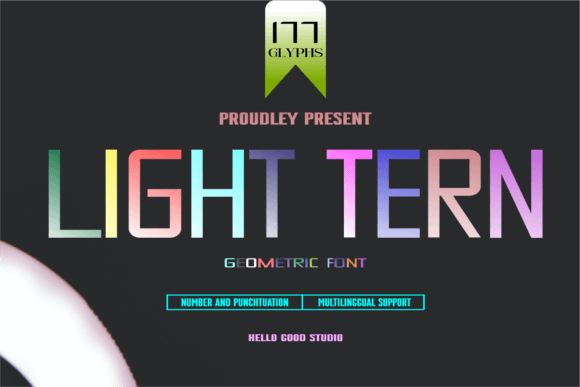
Light Tern: A Modern Display Font That Elevates Handmade Design
It was a quiet Tuesday morning—coffee steaming, candle wax still drying on my workbench—and I was tweaking the label for a new lavender-vanilla soy candle. The scent was calm, the jar was matte white, and the design needed to feel just as intentional. That’s when I opened Light Tern. Instantly, something clicked: clean lines, balanced spacing, and that subtle geometric confidence that doesn’t shout but still commands attention. Light Tern isn’t just another display font—it’s the kind of typeface that makes your handmade product feel thoughtfully composed, even before someone reads a single word.
Light Tern is a modern geometric display font inspired by the clarity and restraint of mid-century typography. Its letterforms are precise but not cold—rounded terminals soften sharp angles, x-heights are generous for readability at small sizes, and spacing feels intuitive whether you’re setting a two-word boutique tag or a full wedding welcome board. It carries warmth without sacrificing polish, making it ideal for makers who want their work to feel both personal and professional.
I first tested Light Tern on kraft paper candle labels—printed on my home inkjet, then cut with my Cricut Maker. At 14pt, the font held crisp detail in the corners of “Lavender & Rain,” and the uppercase “T” and “R” added just enough visual rhythm without overwhelming the minimalist jar. Later, I scaled it up for a farmhouse-style wooden sign (“Gather Here”) and down again for 8mm sticker dots on planner page dividers. Each time, Light Tern adapted—not because it’s flexible in a technical sense, but because its design respects scale, material, and intent.
This font shines where impact matters most: short phrases, names, titles, and decorative wording. Think “Hand-Poured” on a soap wrap, “Est. 2023” on a shop banner, or “You’re Invited” atop a digital invitation suite. It’s not meant for body text or long paragraphs—that’s where pairing becomes essential. I often layer Light Tern with a friendly sans serif (like Montserrat or Inter) for supporting details, or contrast it with a delicate script font for names and dates on wedding stationery. For seasonal printables—think Halloween tags or holiday gift box toppers—I’ll use Light Tern for the main phrase and a soft handwritten font for “From our kitchen to yours” underneath. The result? Clear hierarchy, emotional resonance, and cohesive brand identity across formats.
What makes Light Tern especially practical for makers is how well it translates across mediums. On printed greeting cards, its open counters and consistent stroke weight prevent ink bleed, even on textured cotton paper. For vinyl decals on mugs or tote bags, the clean geometry cuts cleanly on Silhouette and Cricut machines—no finicky serifs or thin connectors to snag. And for digital downloads—planner pages, wall art PDFs, or Canva-ready templates—the font renders beautifully at any resolution, whether viewed on a phone screen or printed at 300dpi.
Readability is thoughtful, too. At 10–12pt on product labels (especially matte or kraft stock), Light Tern remains legible without needing bold weight—though its included Bold and Light variants give room to play. I’ve used the Light weight for delicate botanical tags and the Bold for seasonal market signage, always checking how it appears in mockup previews and listing images. Pro tip: preview your design at 50% zoom—what looks sharp on your monitor might blur in a customer’s thumbnail view.
When preparing packaging for a small batch of ceramic mugs, I set the studio name in Light Tern and paired it with a simple serif (like Playfair Display) for the care instructions. The contrast felt grounded and intentional—not trendy, but timeless. Same with printable wall art: a single phrase like “Breathe Deeply” in Light Tern, centered on cream linen-textured paper, needs no embellishment. Its presence is enough.
Seasonal projects are where Light Tern really sings. For spring farmer’s market tags, I used its rounded “O” and balanced “A” to soften botanical illustrations. For fall harvest boxes, I layered it over burlap textures—its clean lines kept the design from feeling cluttered. Even holiday gift wrap previews looked elevated: “Joy” in Light Tern, foil-stamped in gold, with subtle shadowing in my design software to mimic real-world depth.
What stays with me isn’t just how Light Tern looks—but how it makes the making feel easier. There’s less second-guessing about hierarchy, less tweaking of kerning, less anxiety about whether a font will hold up on sticker paper or embroidery digitizing. It supports your voice instead of competing with it. Whether you're sketching ideas in a notebook, prepping files for Printful, or fine-tuning an Etsy listing image, Light Tern meets you where you are: in the quiet, focused space between idea and object.
If you’ve ever hesitated to commit to a new display font—wondering if it’s versatile enough, readable enough, or distinctive enough—Light Tern answers those questions gently, confidently, and with quiet authority. It doesn’t try to be everything. It simply does what a great display font should: clarify, elevate, and honor the care behind every handmade thing you make.